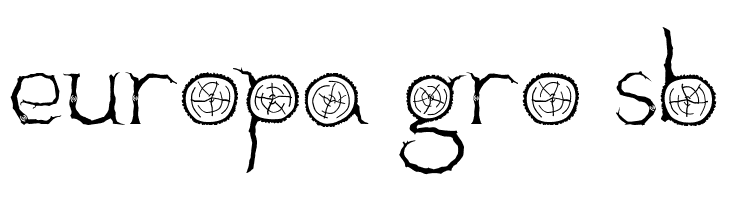
AlphaWood Font
A bold, wood-textured font with a hand-drawn, rustic style.
Woody Font
A playful, decorative font with a hand-carved, textured appearance.
Woodbadge Font
A playful, decorative font with a hand-drawn, textured style.
Wood 2 Font
A decorative font with a wood grain texture, offering a rustic and organic look.
Wood Shapes Font
A decorative font with a wood texture and playful design.
Drift Wood Font
Font by Dieter Steffmann
A rustic, hand-drawn font with a driftwood texture and bold, organic strokes.
Beffle Regular Font
A decorative and bold font with intricate detailing, perfect for elegant and creative designs.
Warsaw Gothic Woodtype Oblique Font
A bold, oblique font with a vintage woodtype feel, perfect for impactful designs.